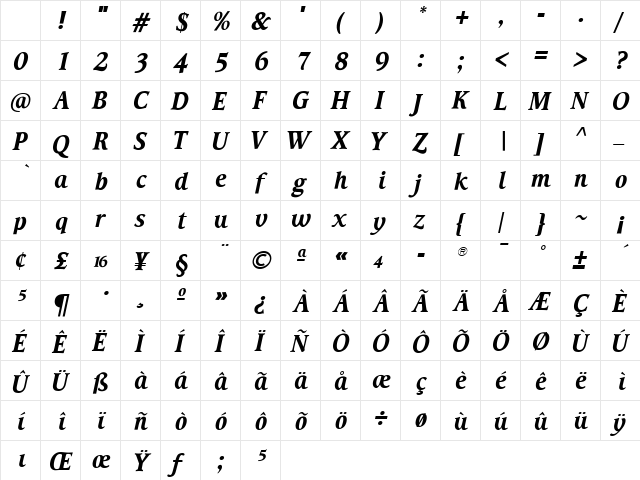
Complete TFHabitat Bold Italic glyph index. Displaying only characters natively supported by TFHabitat Bold Italic font.
TFHabitat is a composed and adaptable typeface that performs quietly and consistently across a wide range of design contexts. The slanted form adds forward momentum and visual energy. Its bold stroke weight gives it real presence on the page.
Pro Tip: Use TFHabitat for emphasis, pull quotes, and subheadings where its slanted energy can add rhythm to the layout.